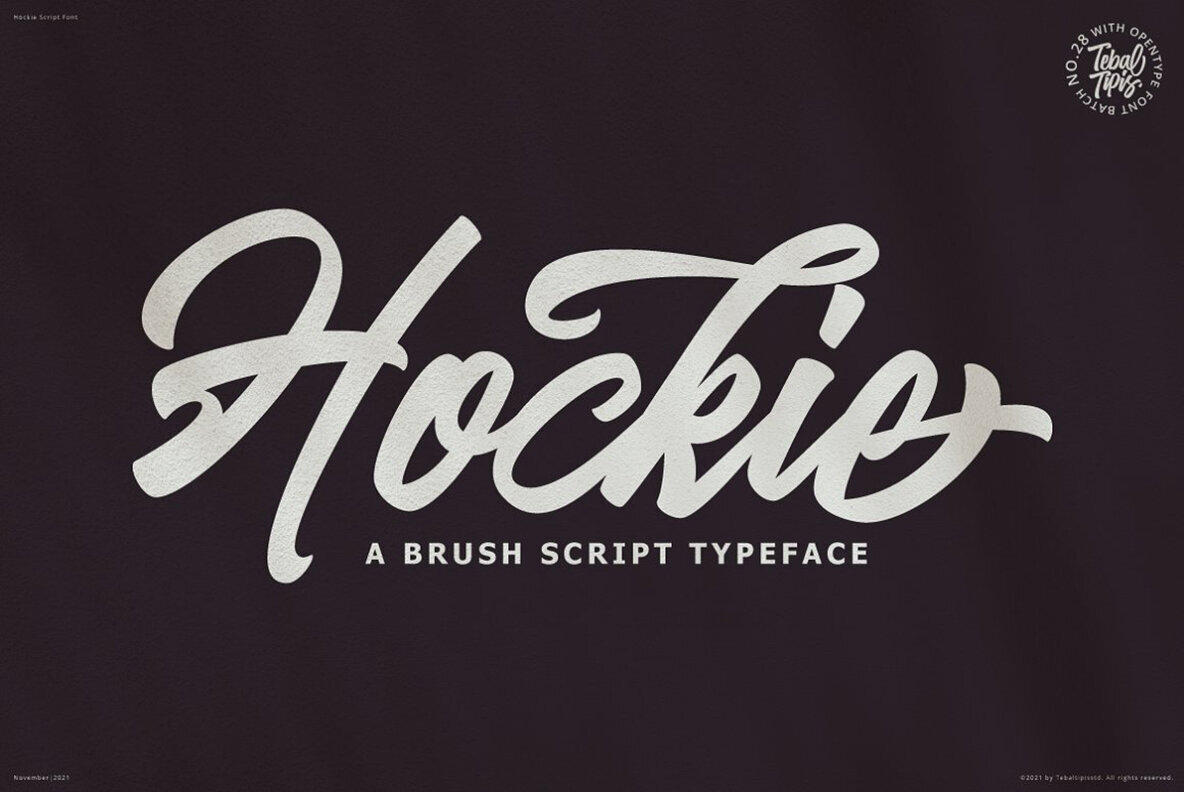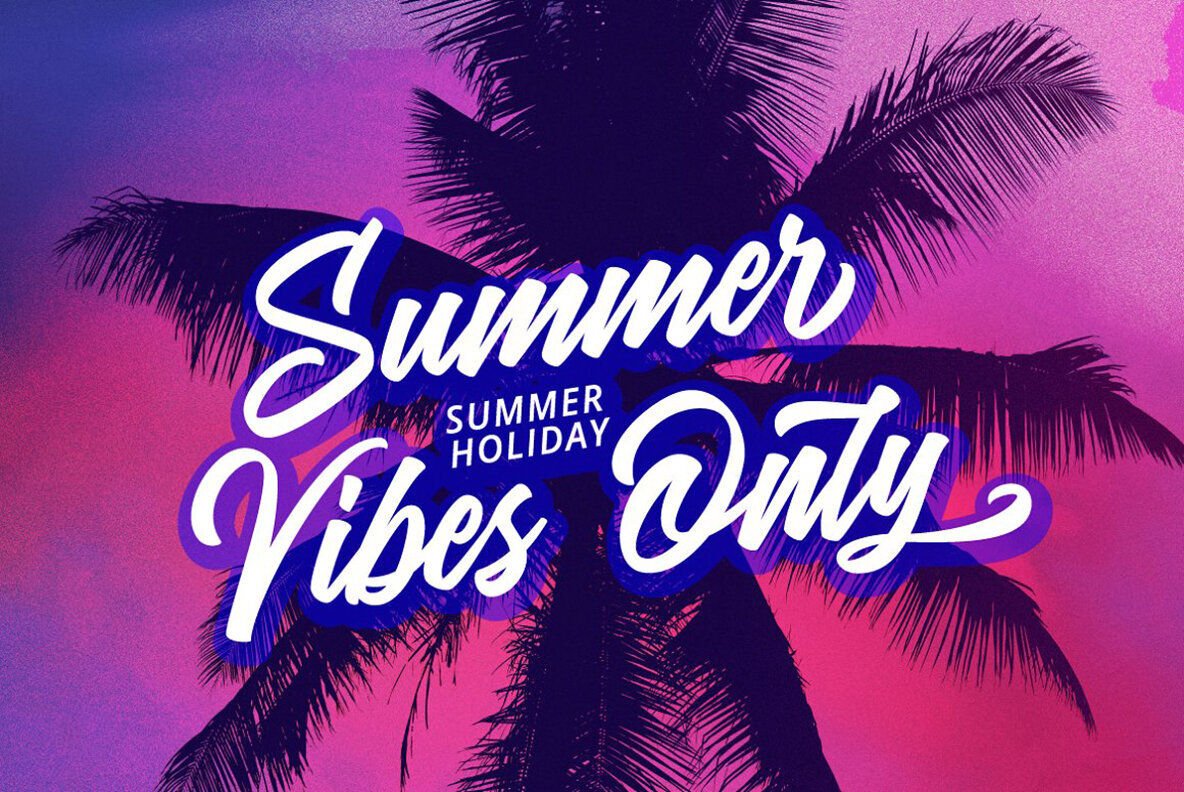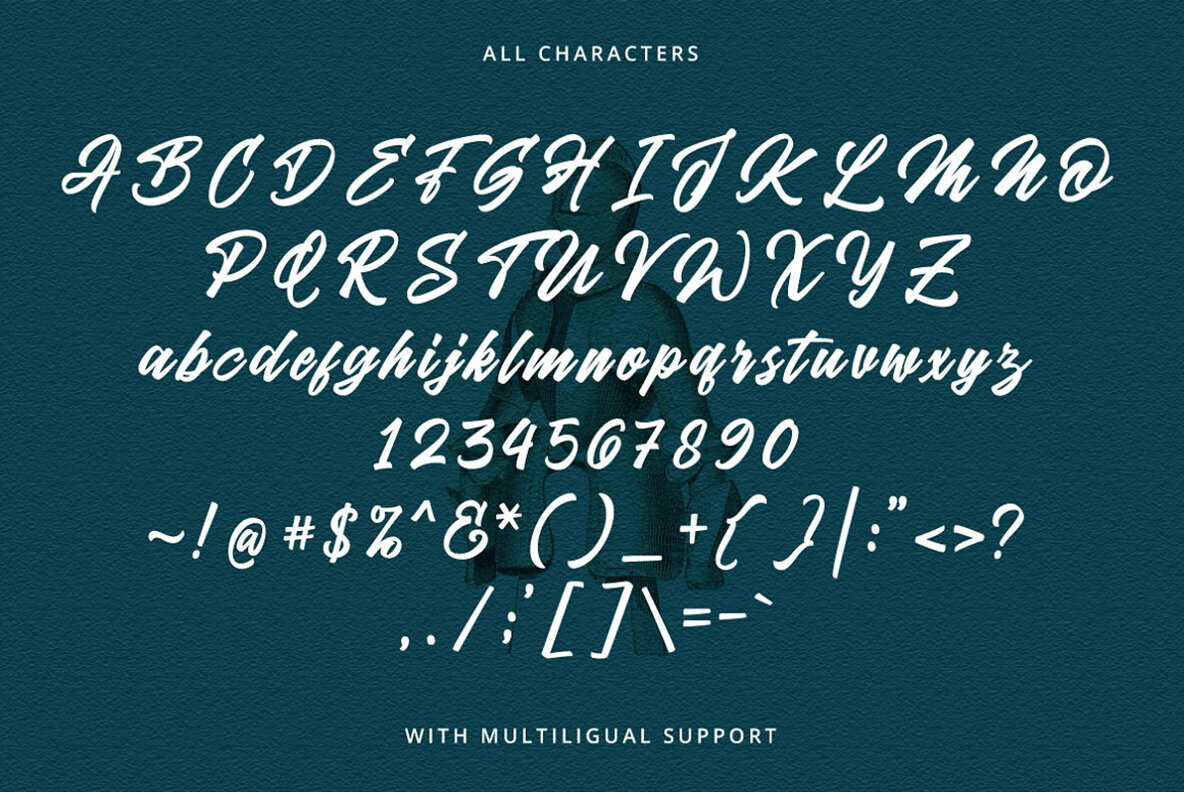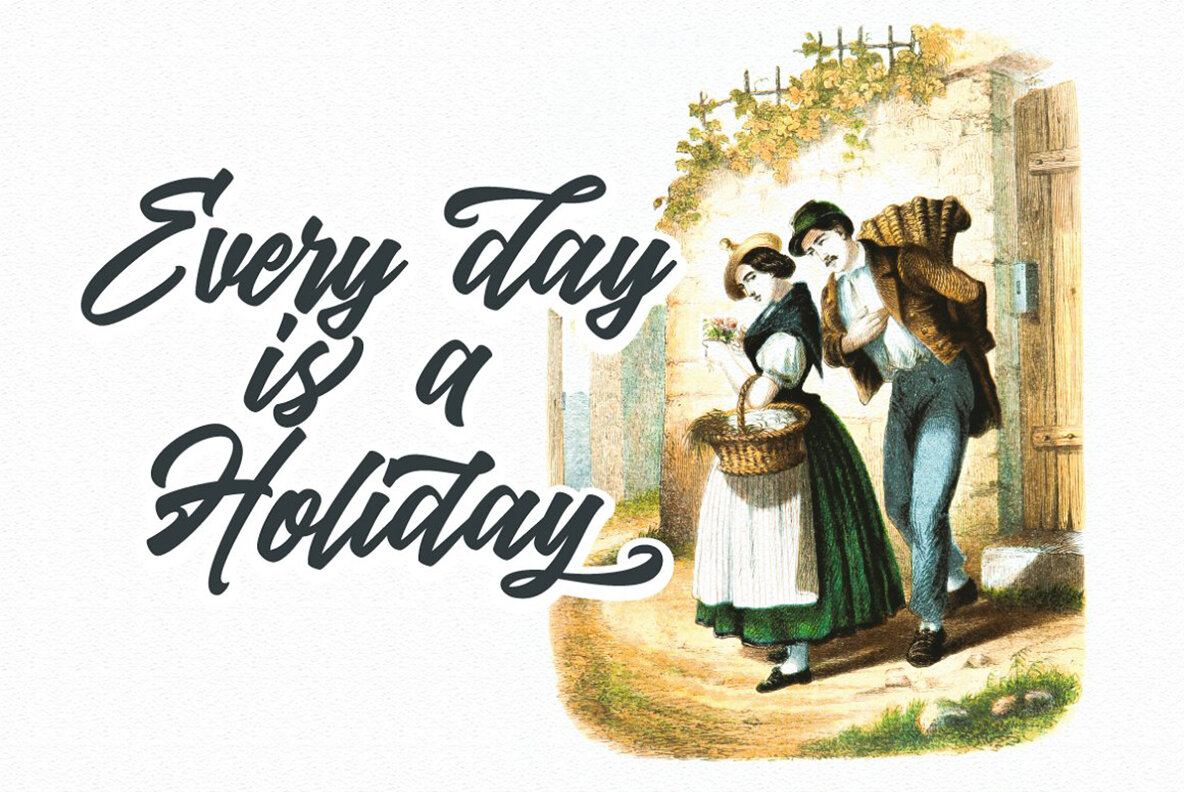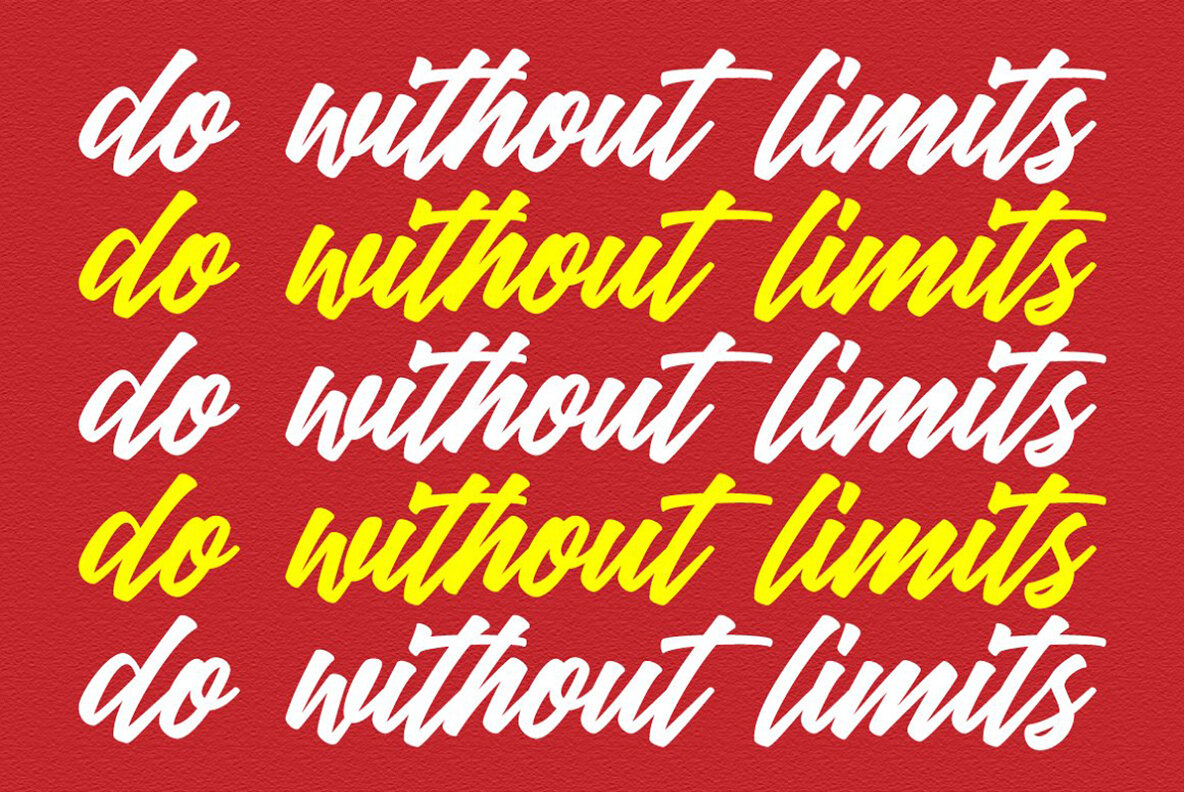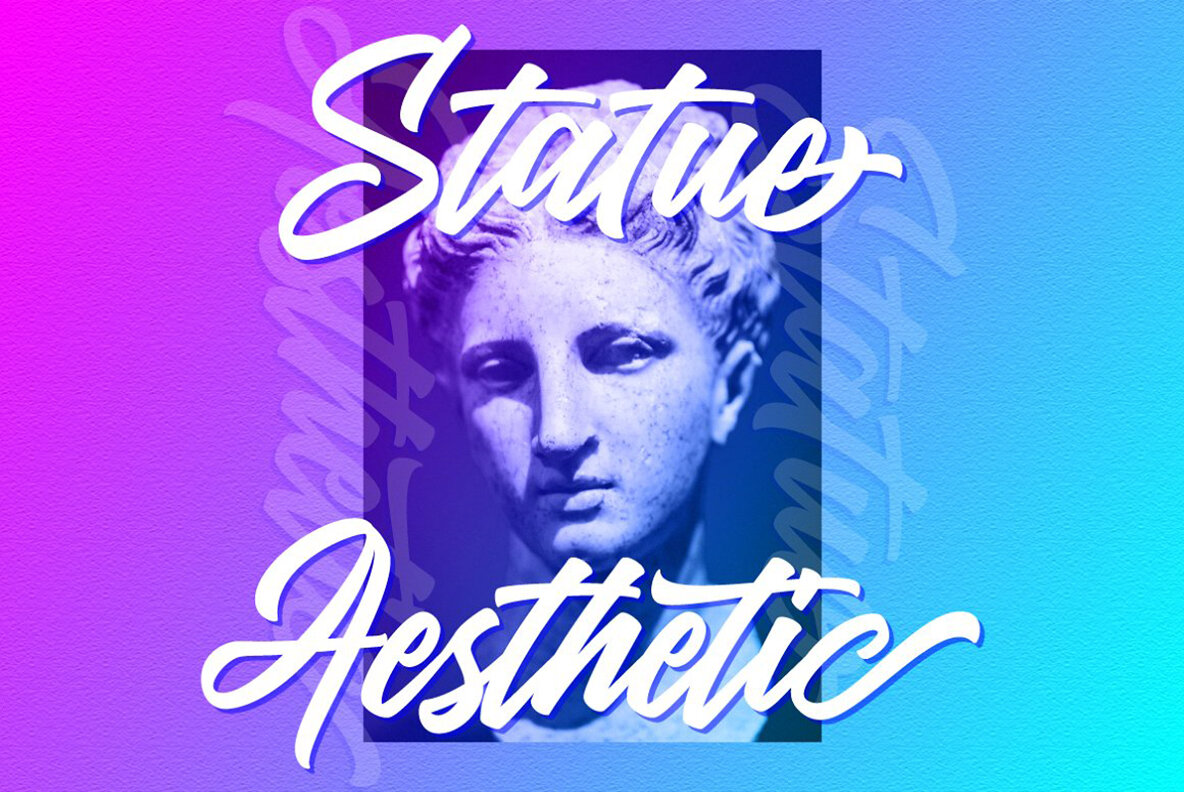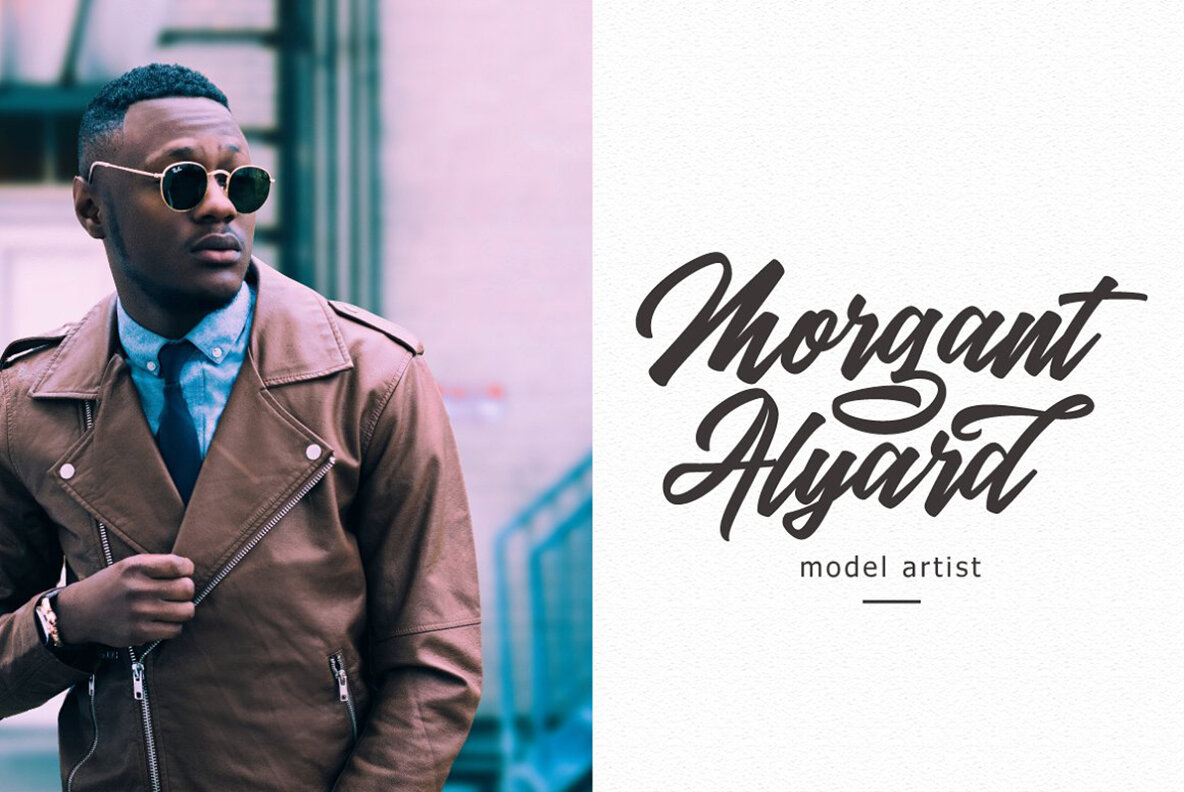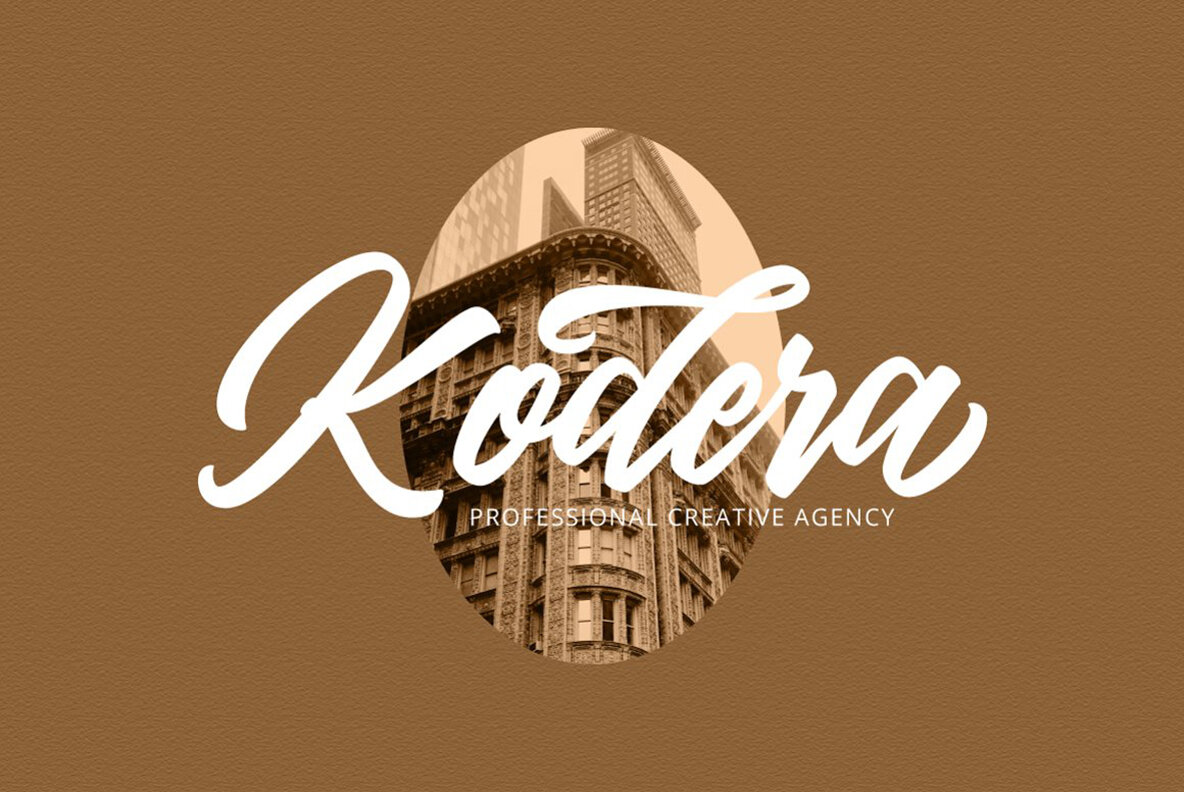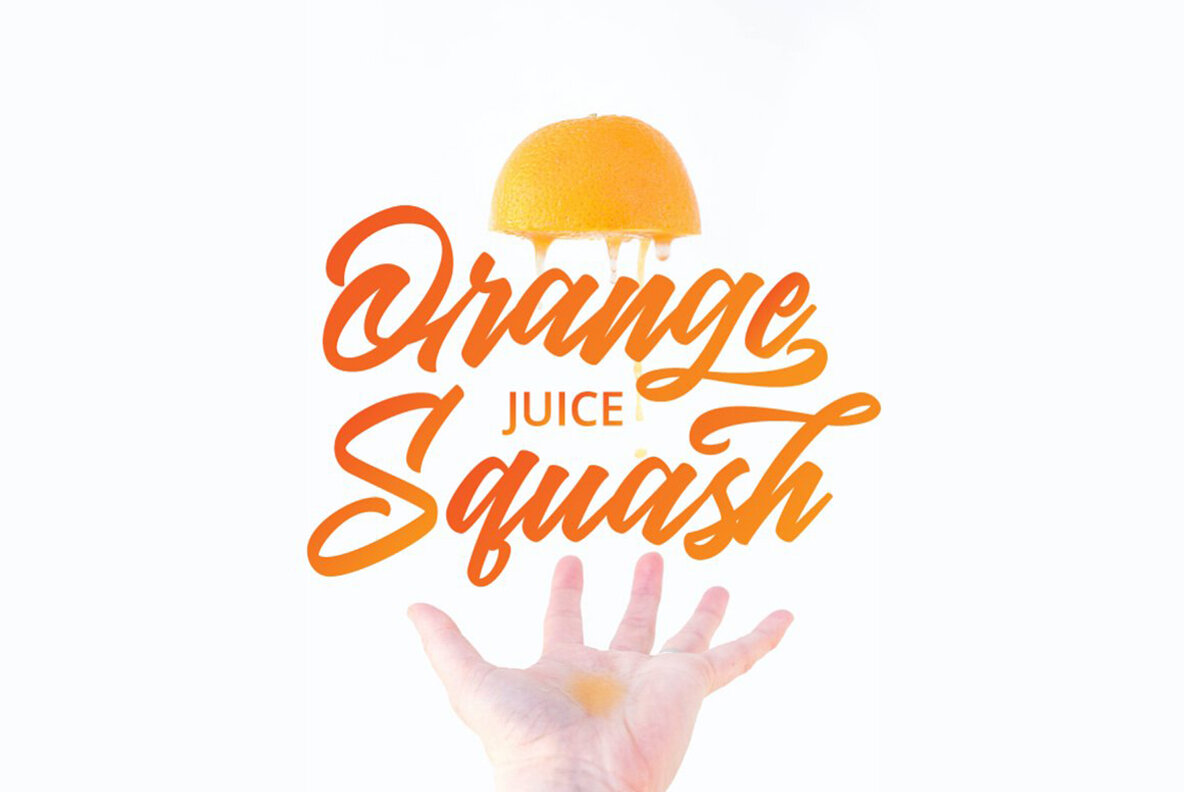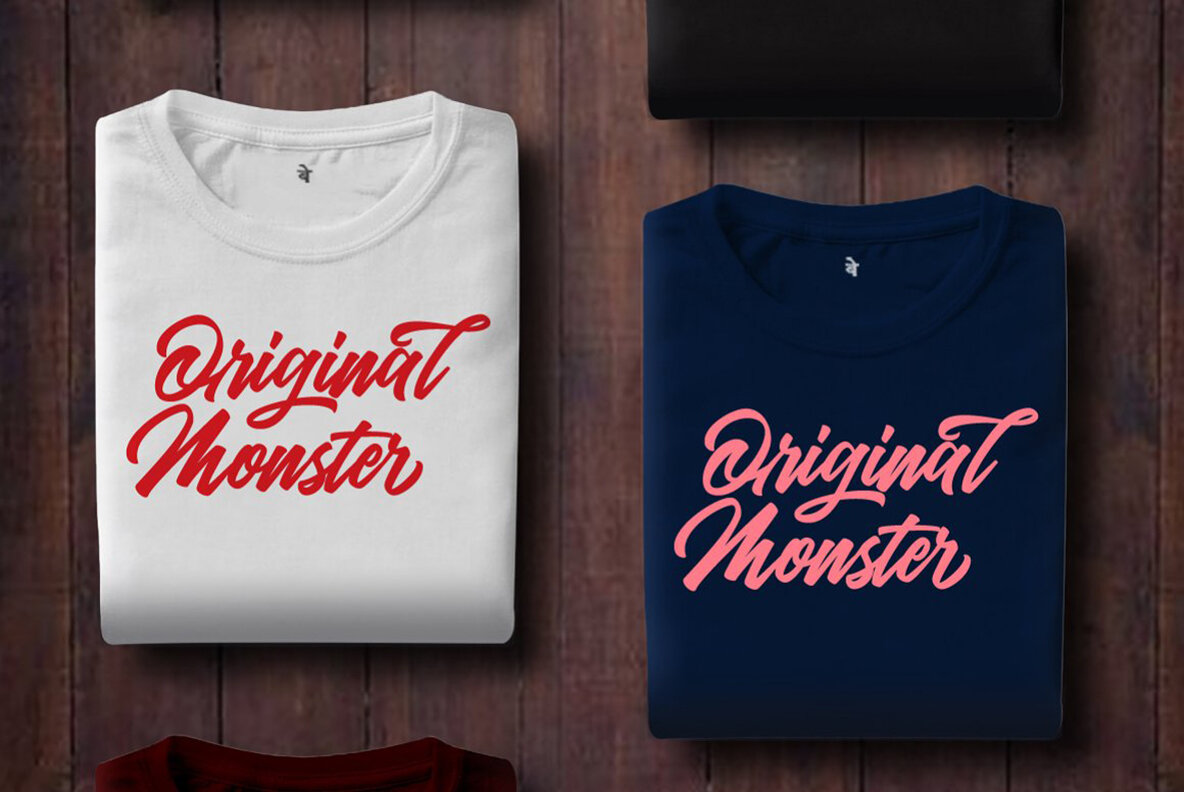
Hockie Font
Hockie Script
Hockie Script is a dynamic typeface brimming with personality, perfect for a wide range of design projects. It is an ideal choice for logos, badges, insignias, packaging designs, headlines, posters, and more. This versatile font offers alternative characters through various OpenType features, which include Stylistic Alternates, Stylistic Sets, and Ligatures. These features allow for creative freedom and customization in your designs.